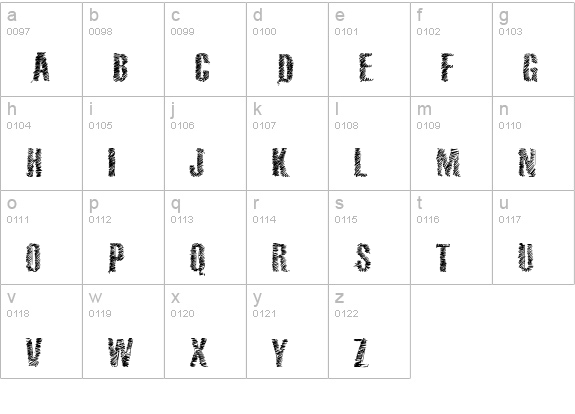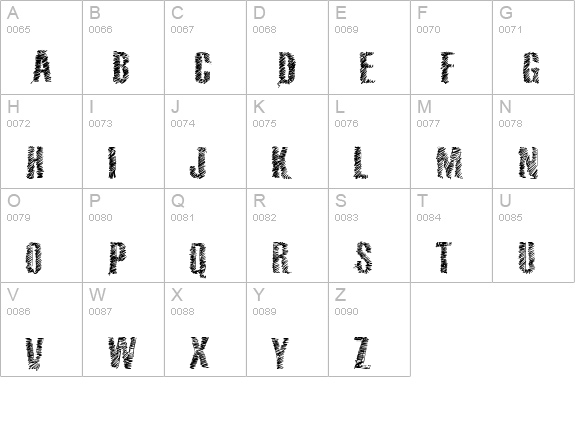
VTKS 36 Font Details
VTKS 36 font is a unique and playful typeface that exudes a sense of creativity and fun. With its bold and quirky design, this font is perfect for adding a touch of personality to your projects. Whether you're looking to create eye-catching headlines or add a playful touch to your designs, VTKS 36 font is sure to make a statement. The best part? VTKS 36 font is completely free to download at FontsMarket.com, making it easily accessible for designers and creatives looking to add a fun and unique touch to their work. So why wait? Download VTKS 36 font today and unleash your creativity with this charming and versatile typeface.